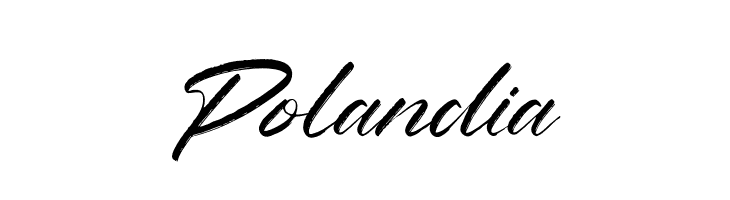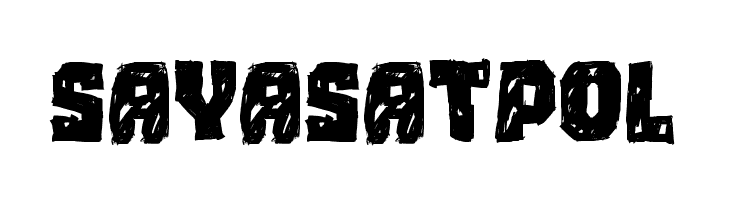
A fluid and graceful script font with interconnected cursive letters.
A bold, distressed font with a rugged, grunge-like appearance.
A graceful, handwritten script font with fluid, connected letters.
A bold, sans-serif typeface with a strong, authoritative presence.
A dynamic and elegant script font with flowing cursive letters.
A bold, pixelated font with a retro digital aesthetic.
A bold, distressed font with a vintage, rugged appearance.
A modern, rounded font with clean lines and balanced spacing.
A bold, brush-style font with an energetic and textured appearance.
A dynamic, fluid script font with elegant, connected letters and varied stroke thickness.